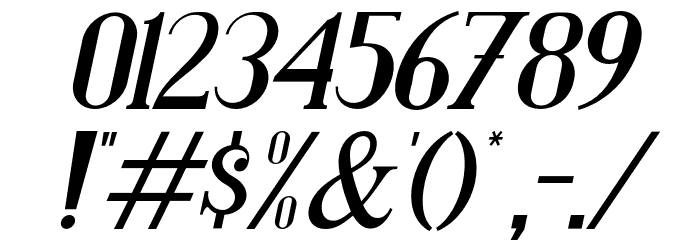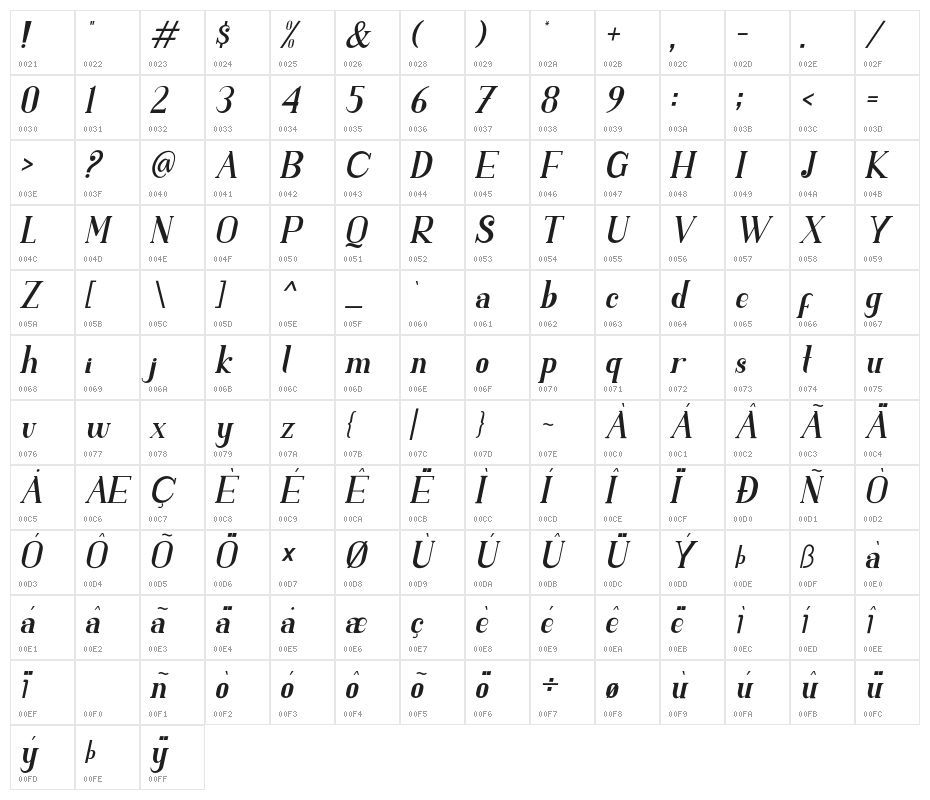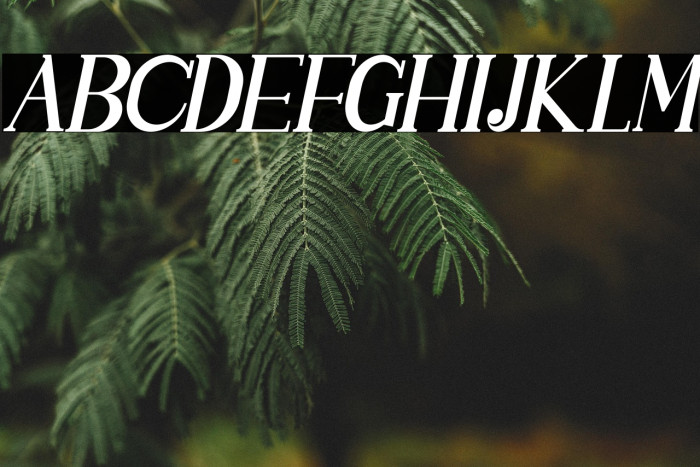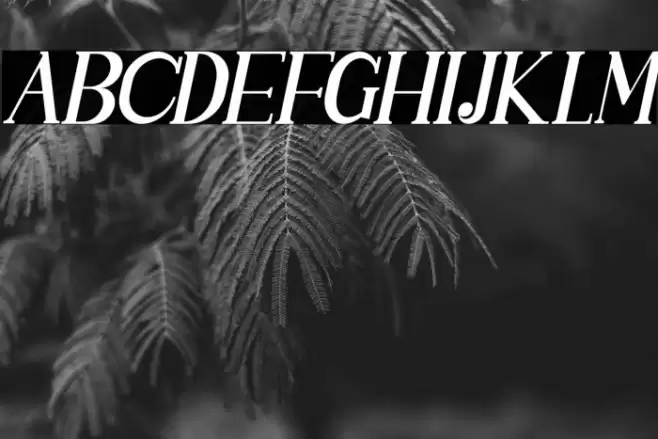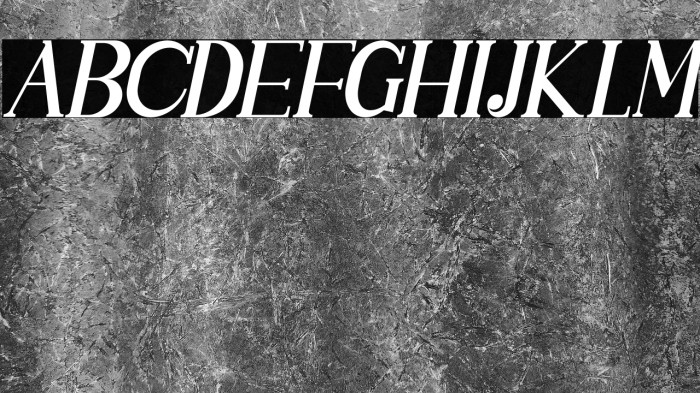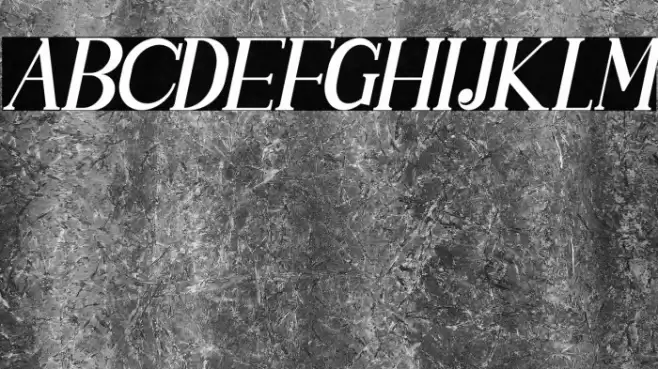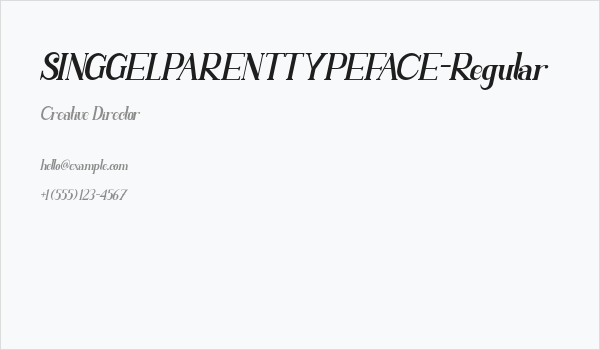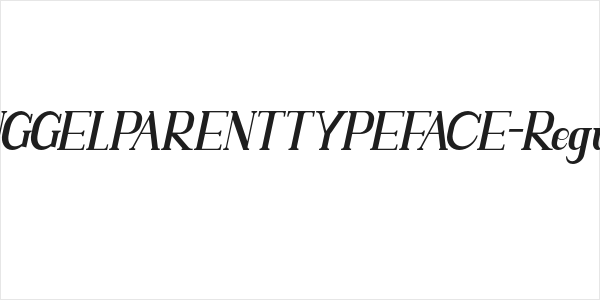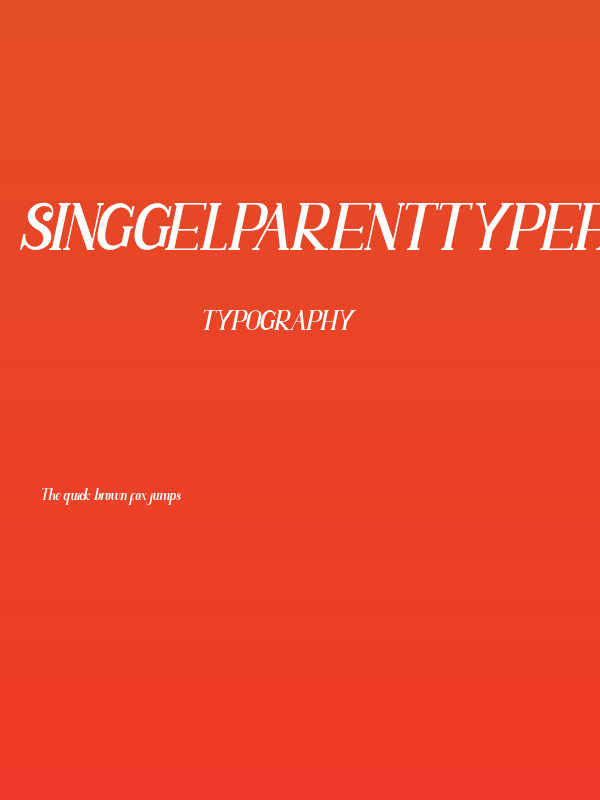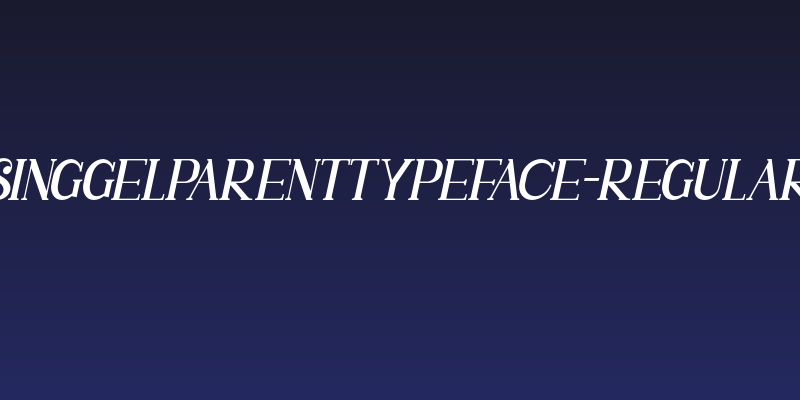
SINGGELPARENTTYPEFACE-Regular Font
SINGGELPARENTTYPEFACE-Regular Description
This typeface features a dynamic and elegant design, characterized by its high contrast between thick and thin strokes. The uppercase letters exhibit a sophisticated flair with slightly exaggerated serifs, while the lowercase letters maintain a consistent flow with a touch of cursive influence. The numerals are bold and assertive, complementing the overall style. Special characters are designed with the same attention to detail, ensuring a cohesive look across all glyphs. The font's unique style makes it suitable for projects that require a touch of elegance and modernity.